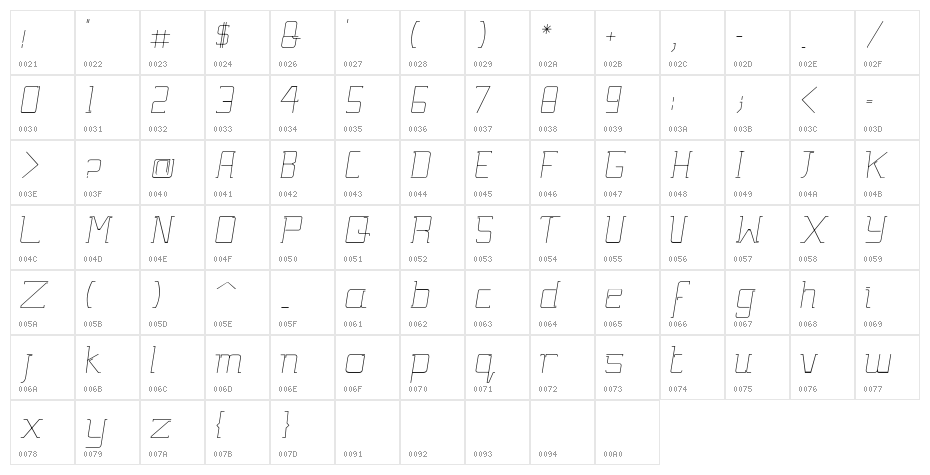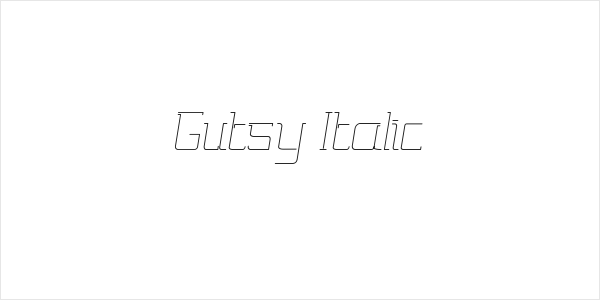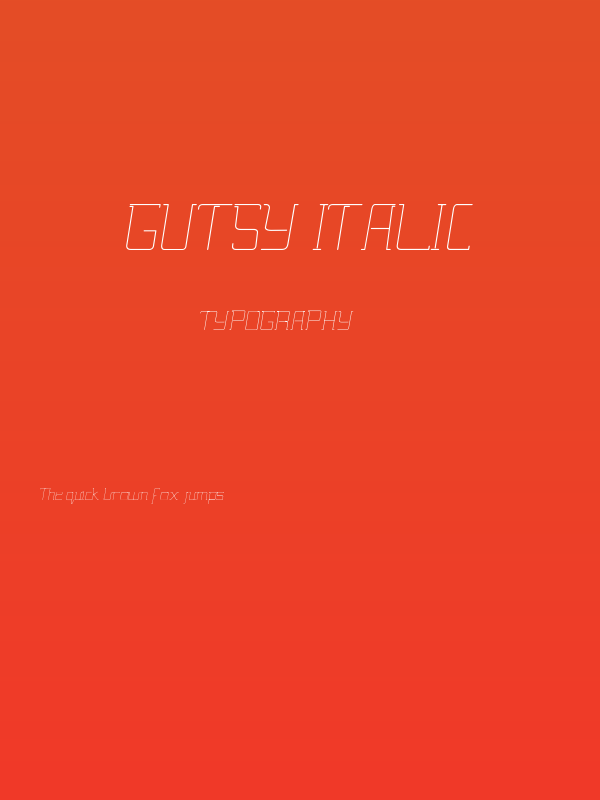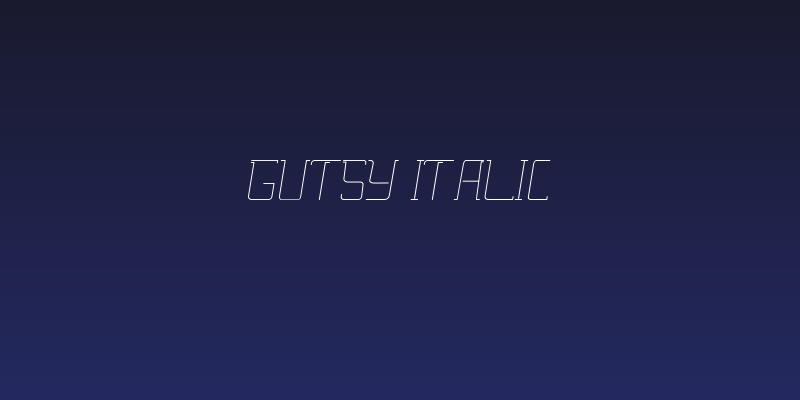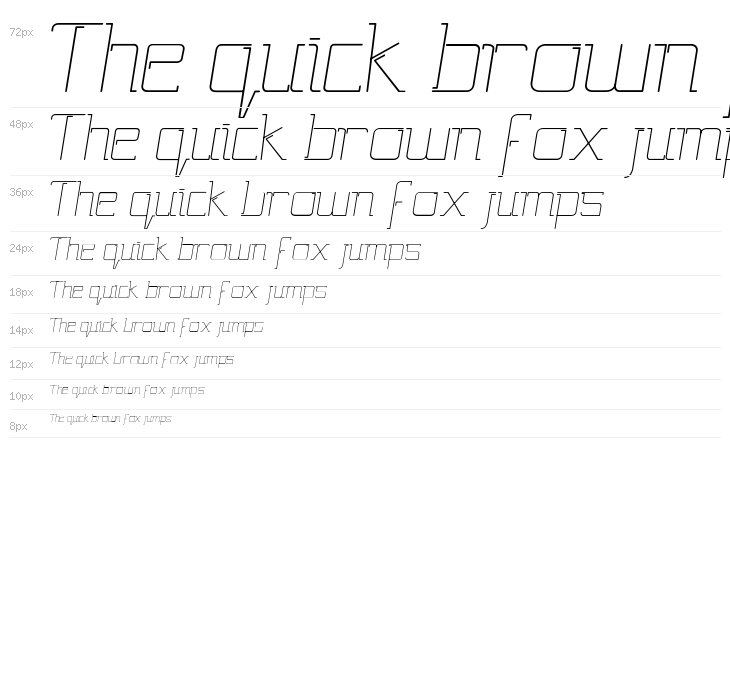
Gutsy Italic Font
Gutsy Italic Description
This font features a modern, geometric design with a distinct italic slant, giving it a dynamic and forward-moving appearance. The characters are constructed with clean, straight lines and sharp angles, creating a sense of precision and technicality. The uppercase and lowercase letters maintain a consistent style, with a uniform stroke width that adds to the font's sleek and streamlined look. The numerals and special characters are designed to match the overall aesthetic, ensuring a cohesive appearance across all text elements. This font is ideal for projects that require a contemporary and professional look.
| Use Case | Headlines, Logos, Digital Interfaces |
| Proposed Projects | Ideal for tech branding, modern advertising, digital interfaces, and futuristic designs. |